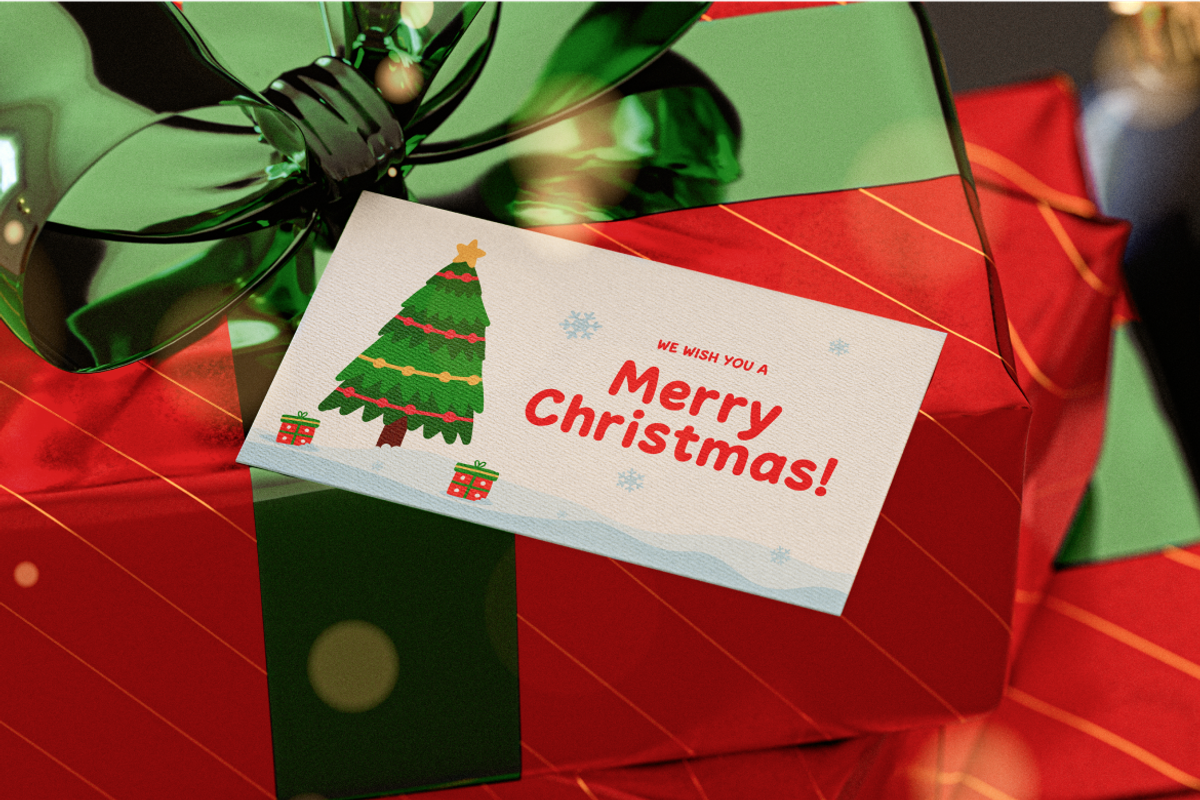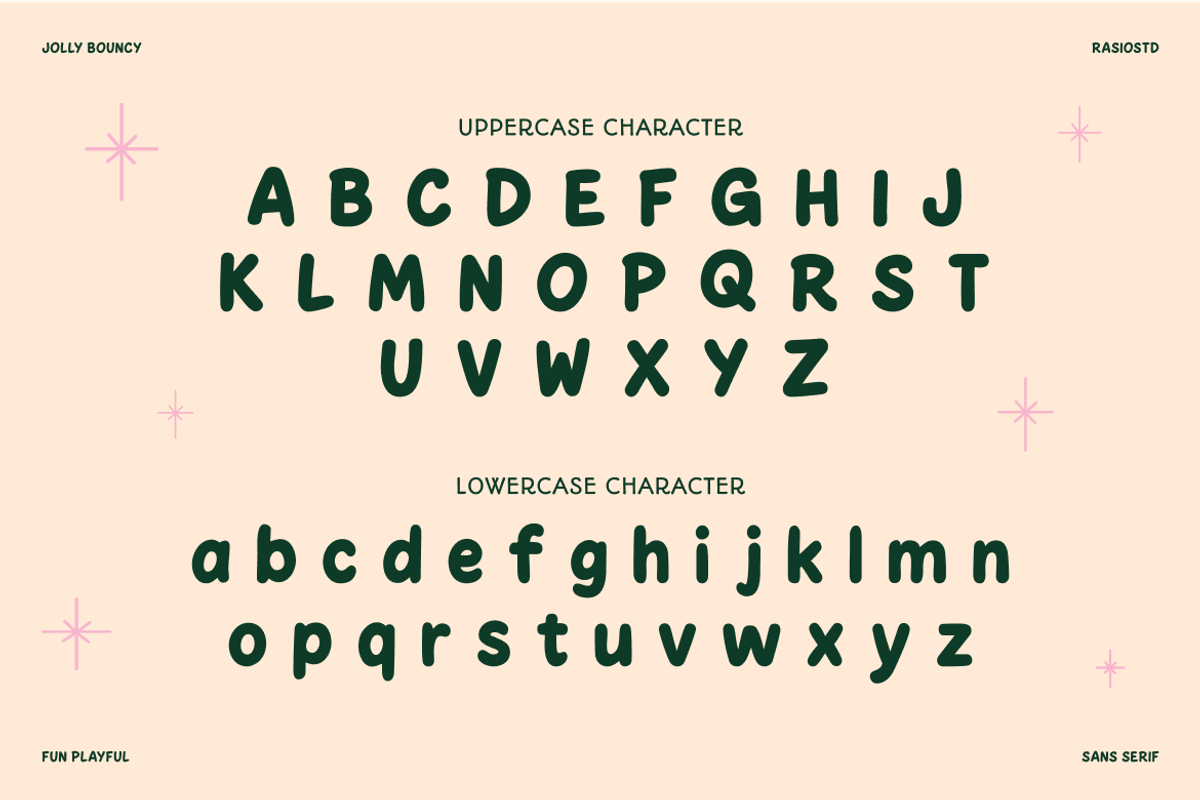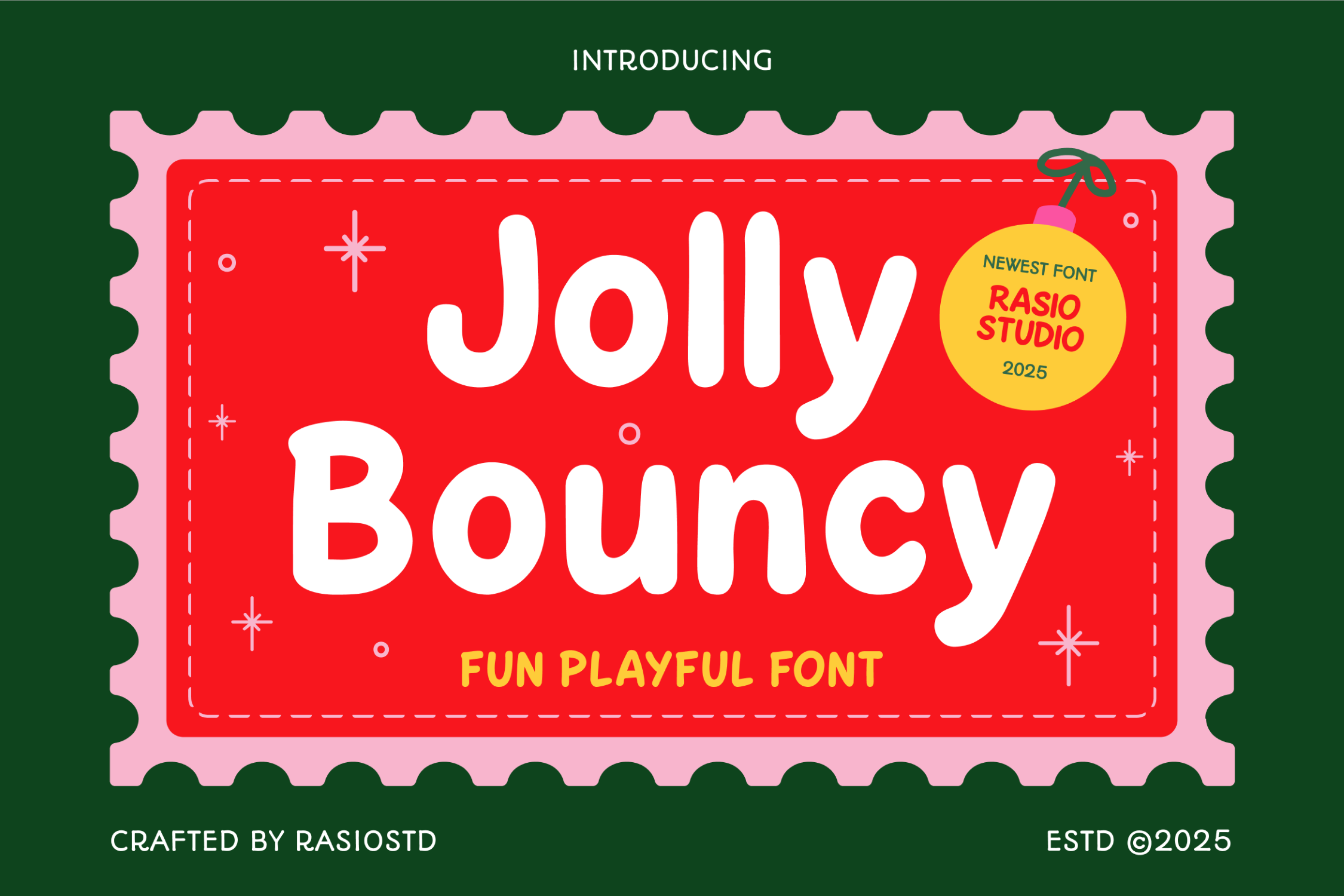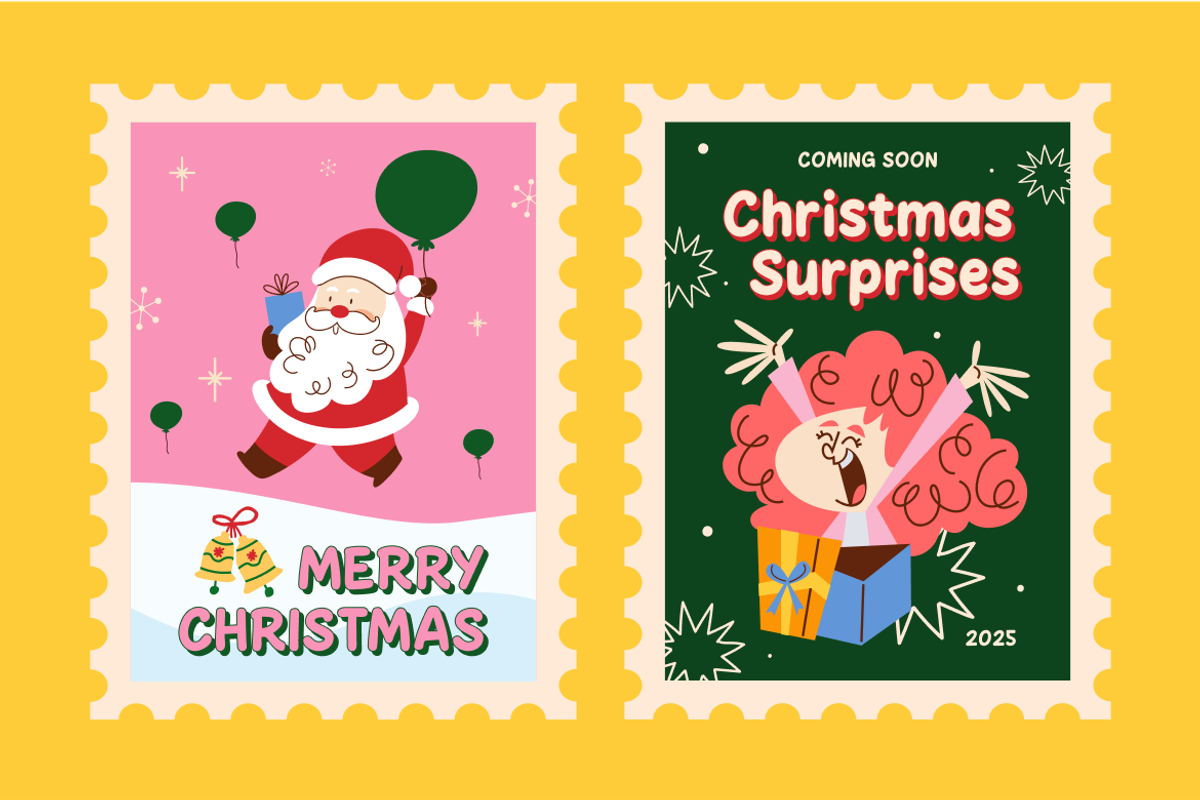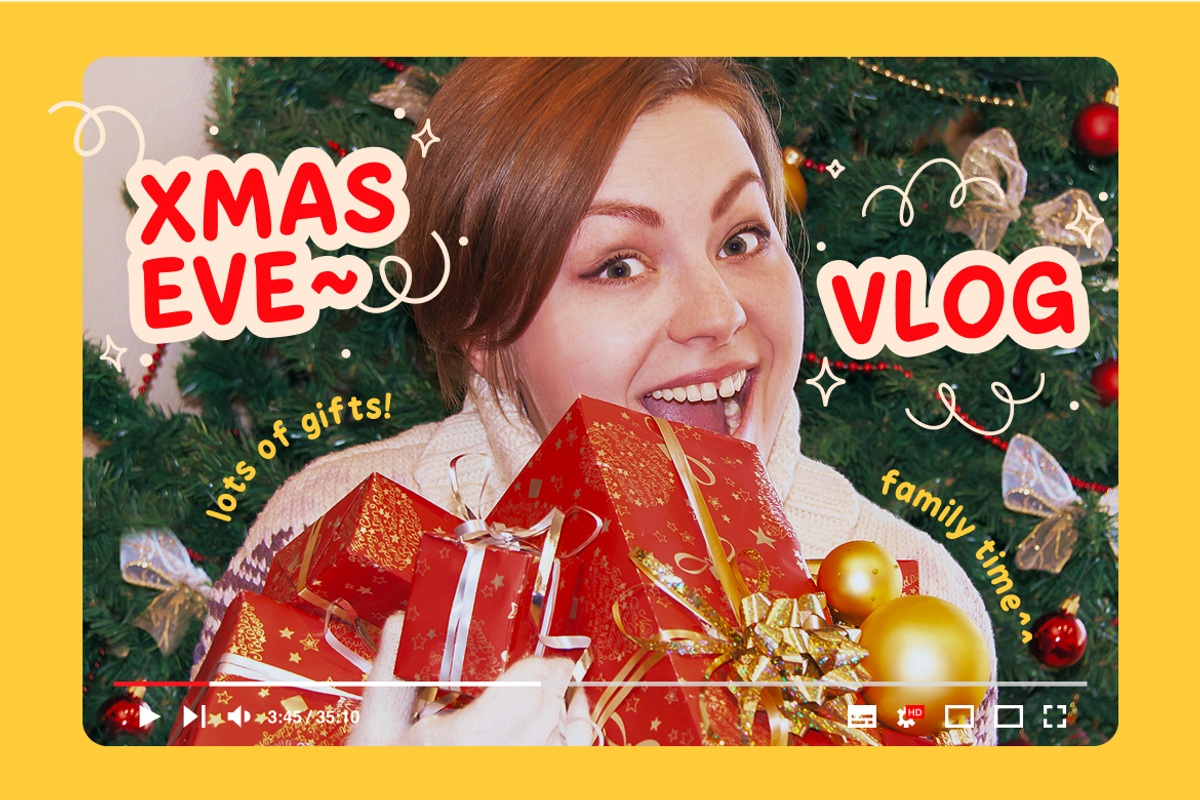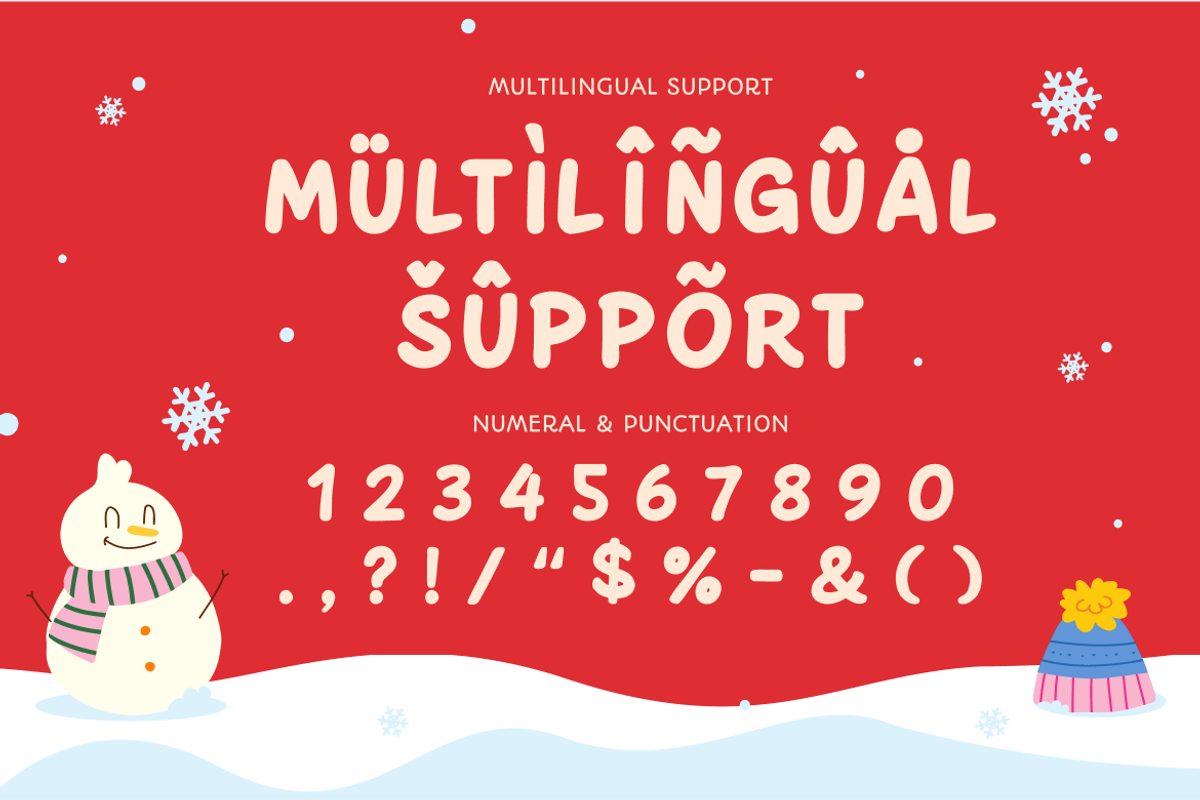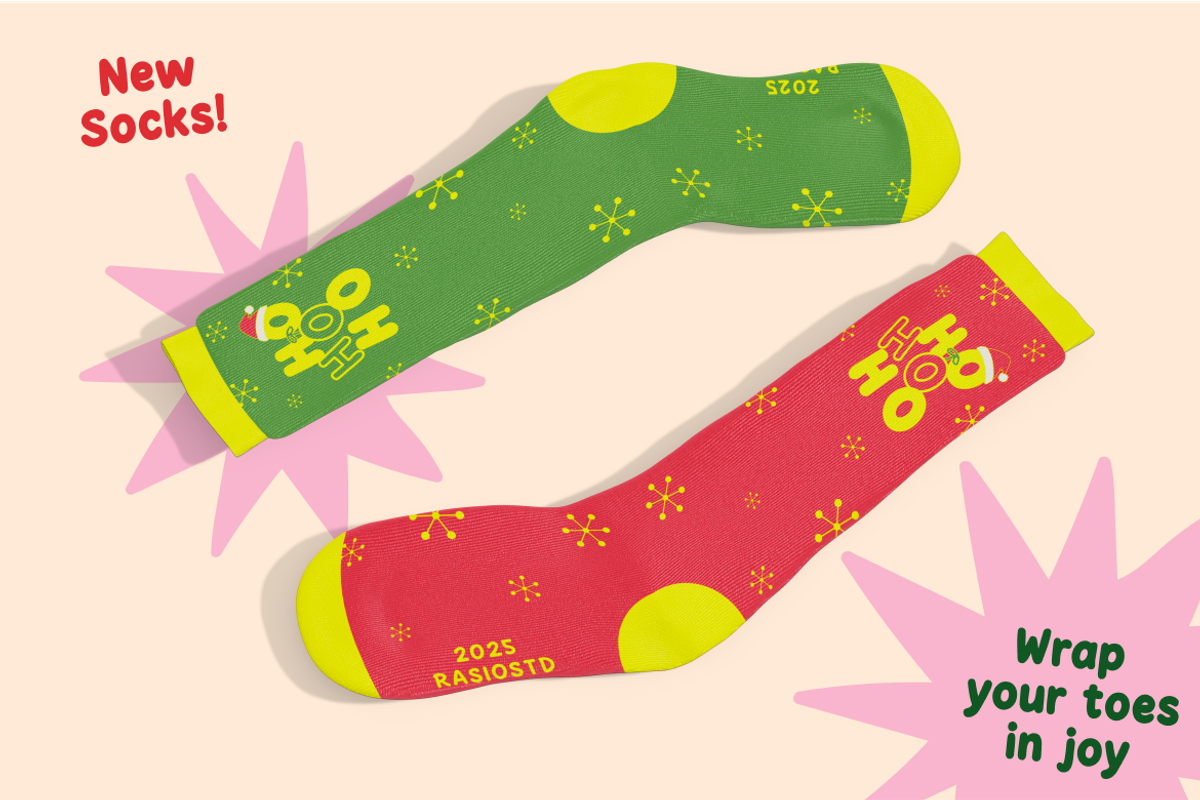
Jolly Bouncy Fun Playful Font
Jolly Bouncy is a cheerful rounded sans serif display font with soft curves, chunky shapes, and lively character forms that create a warm and friendly personality. The typeface features smooth terminals, balanced proportions, multilingual support, numerals, and punctuation, making it versatile for bold headlines and playful layouts.
Relevance and Use Cases is perfect for children’s branding, toy packaging, school materials, storybooks, birthday invitations, playful posters, social media graphics, sticker designs, crafts, educational products, and any project that needs a warm, cute, and joyful typographic voice. Designed with clean spacing and high legibility, it delivers a lighthearted yet clear presence across print and digital projects.
- Rounded, bubbly letterforms that create a friendly and cheerful look
- Playful shapes with slight irregularity for a natural hand-drawn feel
- Smooth terminals and bold strokes for strong, easy readability
- Balanced weight that feels chunky without looking heavy
- Open spacing and clean counters for clear display across media
- Kids brands, toy packaging, and playful product identities
- Children’s books, story covers, and educational materials
- Posters, stickers, and fun merchandise designs
- Social media graphics, quotes, and cheerful promotions
- Event invites, greeting cards, and festive seasonal projects
Jolly Bouncy delivers soft curves, happy vibes, and lovable personality